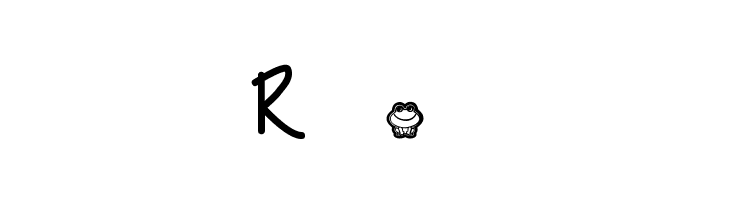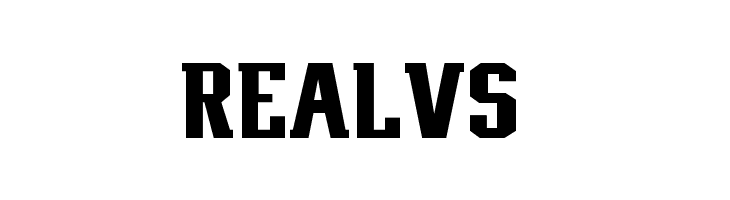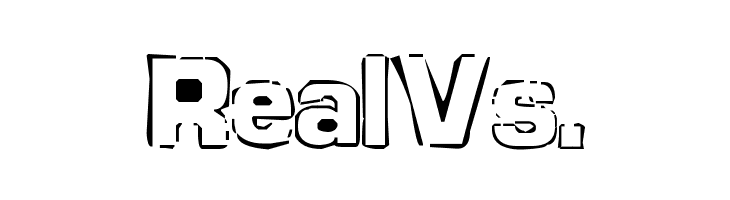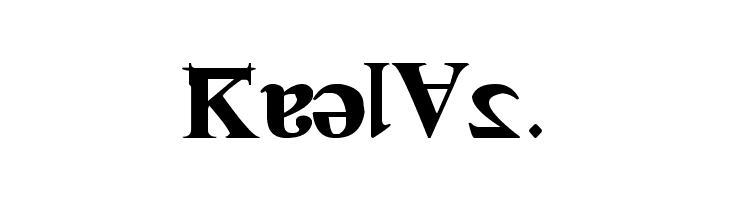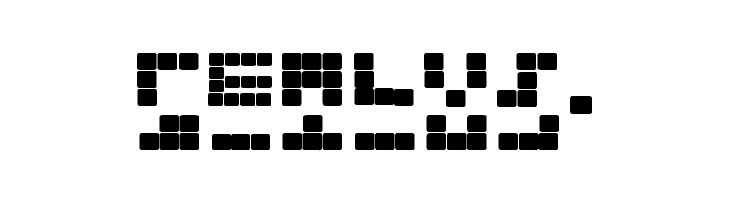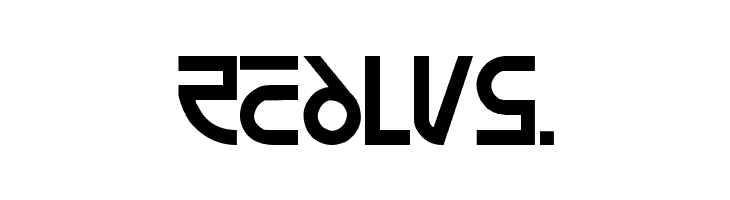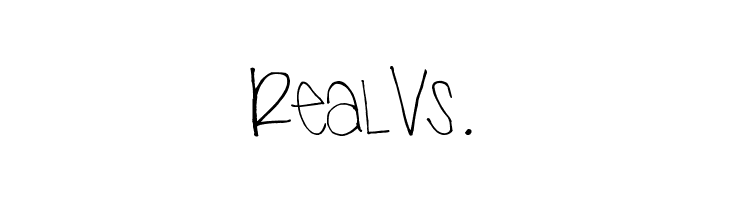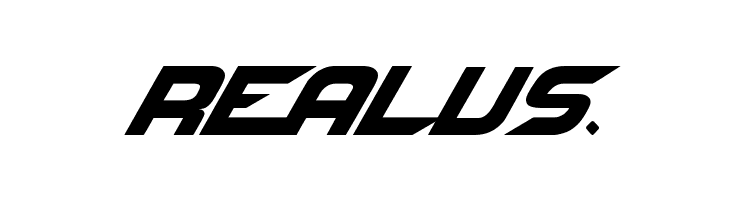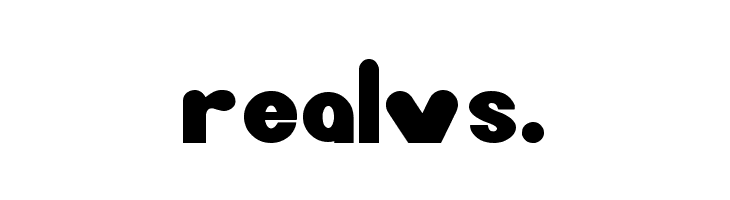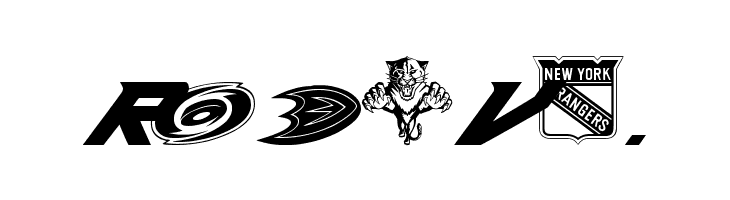
A modern, bold sans-serif font with geometric shapes and uniform strokes.
A sleek, modern font with thin, uniform strokes and a geometric influence.
A bold, textured font with a dynamic, vibrating appearance.
A playful and eclectic font with unique, decorative characters.
A bold, geometric font with a futuristic and modern aesthetic.
A bold, geometric font with a futuristic and modern design.
A bold, geometric display font with a pixelated, retro video game aesthetic.
A bold, outlined font with a modern, decorative style and high contrast.
A bold, textured font with characters made of small text, evoking a newspaper print style.
A bold, blocky font with a shadow effect, perfect for impactful headlines.
A bold, angular font with a dynamic, sporty aesthetic.
A playful, hand-drawn font with dynamic curves and a whimsical style.